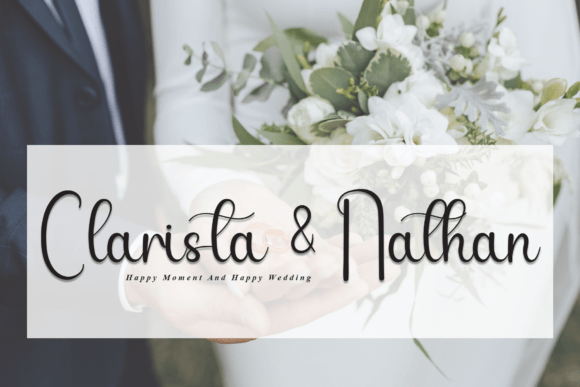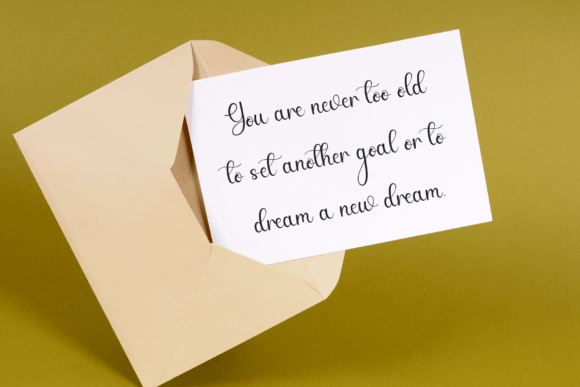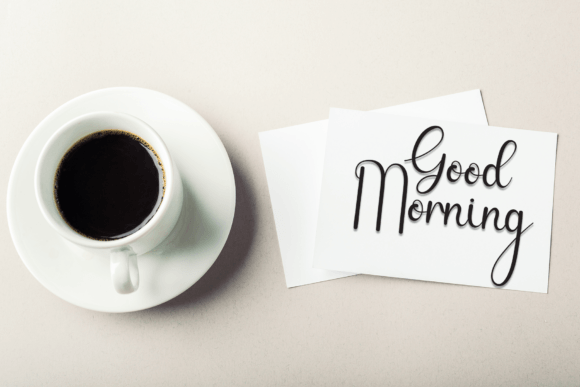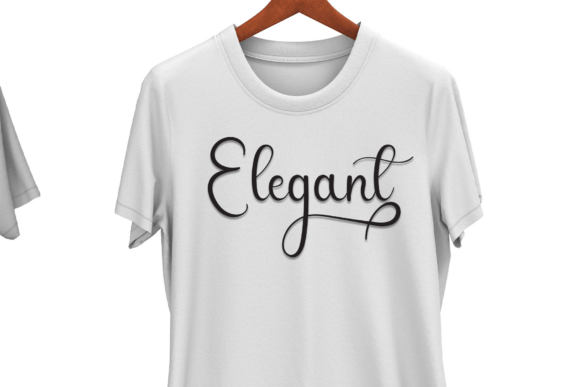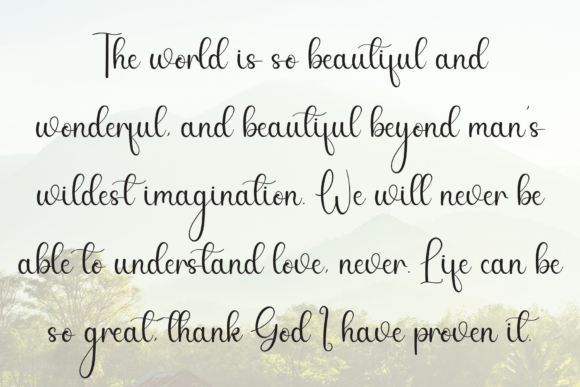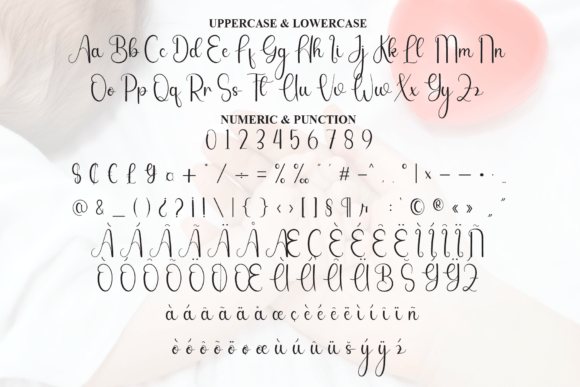
The Perfect Script Font for a Touch of Warmth
Have you ever been stuck trying to find the perfect font to convey a special message, only to end up with something that feels too formal or generic? I’ve been there too, and that’s why I’m excited to introduce you to the Babylove Font – a playful and cute script font that’s sure to add a warm touch to your designs.
With its smooth, flowing letters and friendly, hand-written style, the Babylove Font is perfect for invitations, greeting cards, and anything that needs a personal touch. Whether you’re a seasoned designer or just starting out, this font is a valuable addition to your toolkit. Its versatility and charm make it a go-to choice for designers looking to add a little extra something to their projects.
Babylove Font Key Features
- Font Family: Babylove Font is a unique, cursive script font designed for various applications.
- Unique Characteristics: The font features a playful, whimsical feel with elegant flourishes and subtle variations in letterforms, making it ideal for baby-related designs, invitations, and other creative projects.
Babylove Font Review
Overall, I’d say Babylove Font is a cute and playful addition to any design project. It’s perfect for child-related themes, such as baby products, nursery decor, or kids’ clothing. The font’s whimsical feel immediately conveys a sense of fun and innocence.
- Easy to read: The font’s design makes it clear and easy to read, even at smaller font sizes.
- Perfect for hand-drawn feel: Babylove Font has a unique, hand-drawn quality that adds a personal touch to your designs.
- Not suitable for professional or formal contexts: The font’s playful feel may not be suitable for serious or professional projects.
Overall, I’d give Babylove Font 3.5 out of 5 stars. It’s a great choice for child-related themes, but may not be the best fit for more formal or complex design projects.
Tips for Getting the Most Out of the Babylove Font
The Babylove font is ideal for creating cute and playful designs. Here are some tips for getting the most out of it:
- Use it for baby-related designs, such as baby shower invitations and nursery decor.
- Pair it with bold and colorful graphics for a playful look.
The Babylove font is commonly used for:
- Baby shower invitations and decorations.
- Nursery decor and wall art.